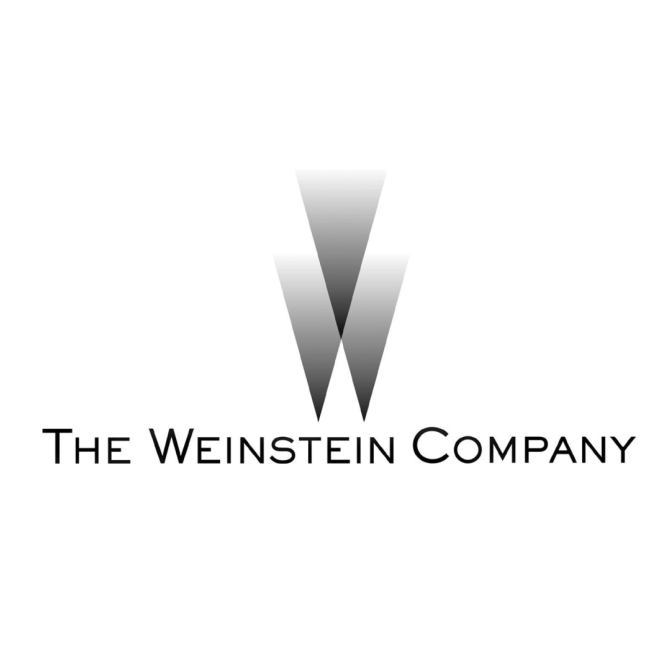
The Weinstein Company Font
EntertainmentThe Weinstein Company (TWC) was a film and television production company co-founded by Harvey and Bob Weinstein in 2005.
The company logo uses Sackers Gothic Heavy, a font inspired by ancient Roman inscriptions. Designed by Monotype Design Studio in 1994, this all-capital sans serif font comes in three weights with alternate options.